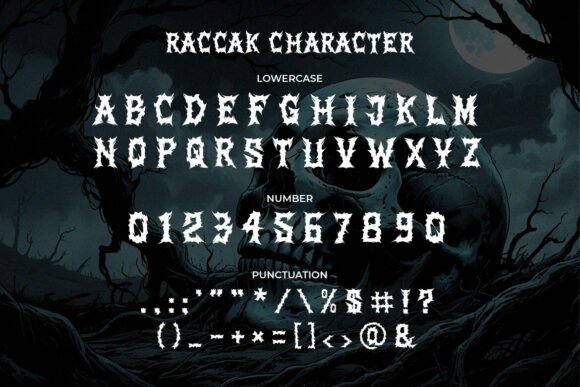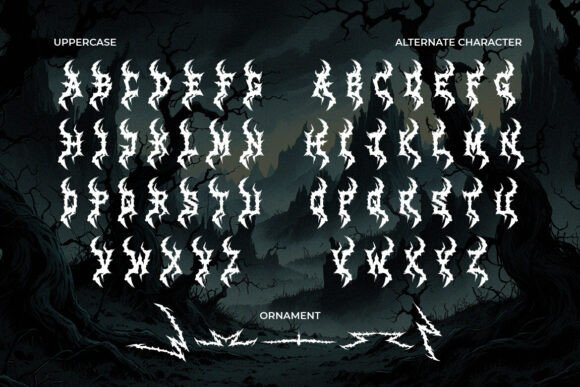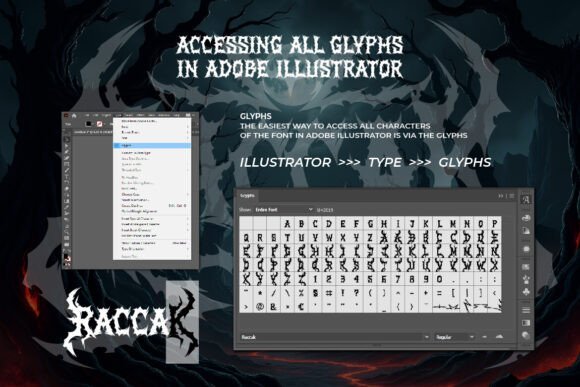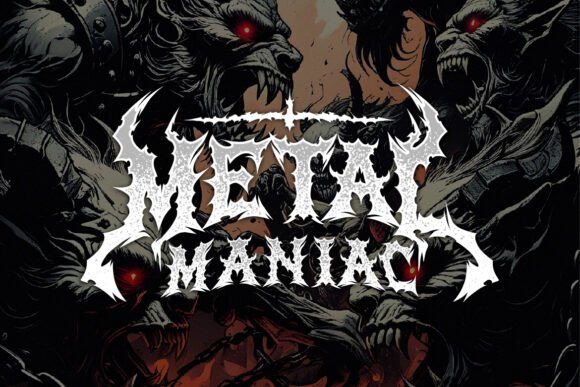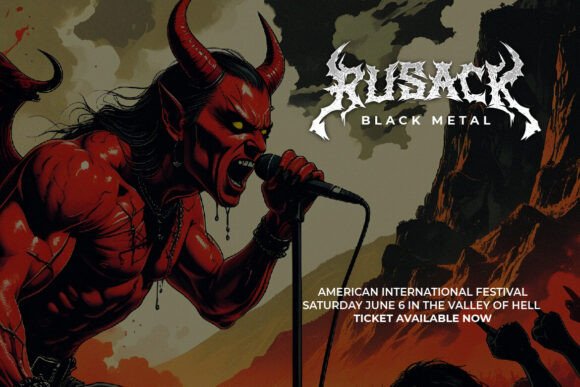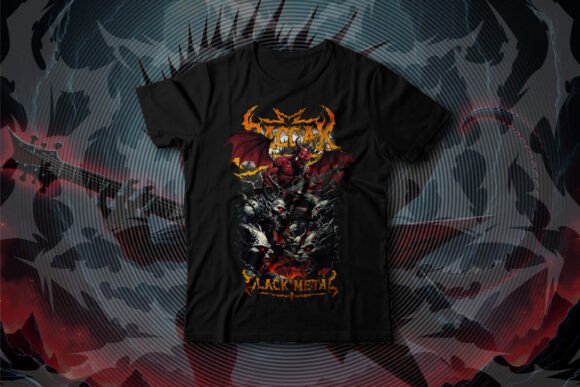
Introduction to Raccak Font
Raccak Font is a savage typographic force forged in the depths of darkness.
With razor-edged letterforms, chaotic strokes, and an untamed energy pulsing through every glyph, Raccak is built for extreme metal bands, horror visuals, underground streetwear, and any design that demands total annihilation of the norm Inspired by flame, fury, and rebellion, this font doesnโt whisperโit roars.